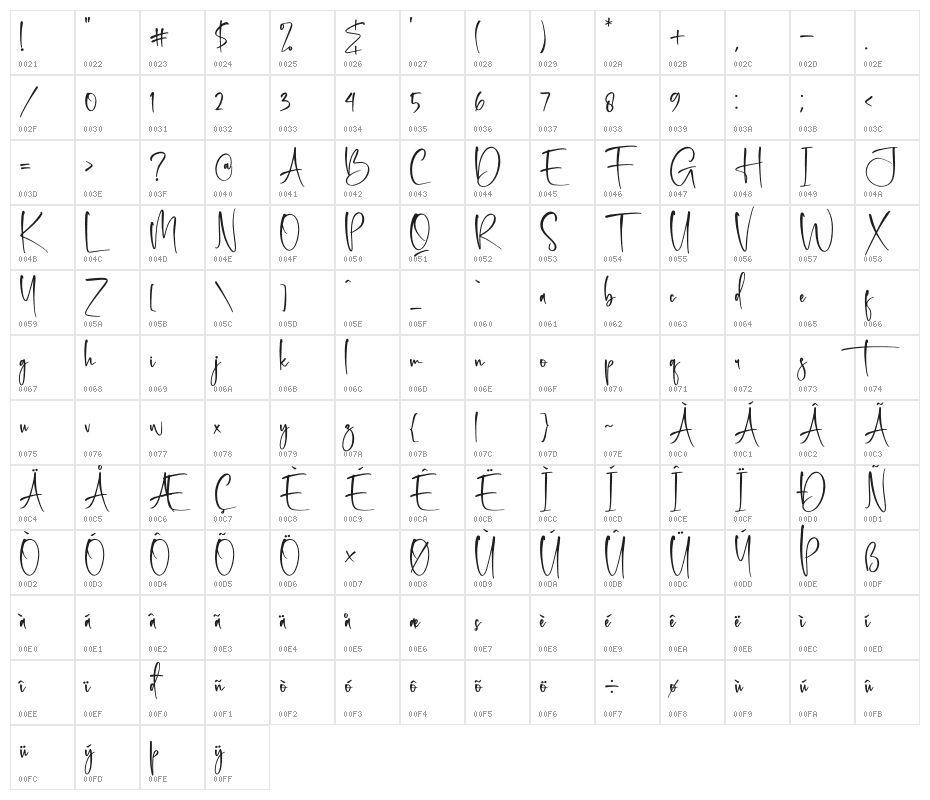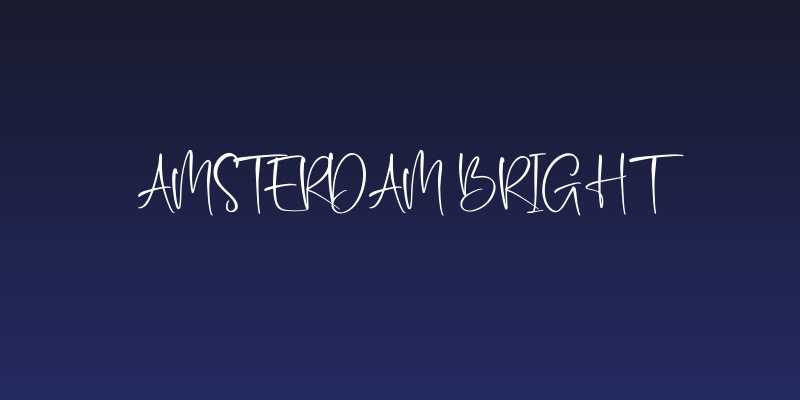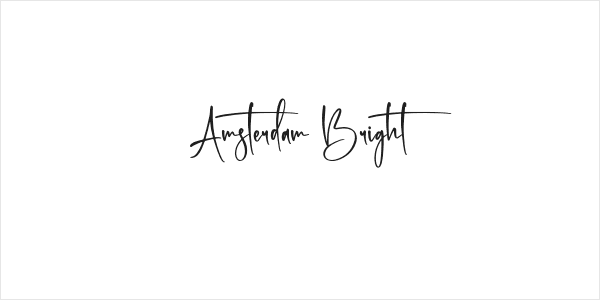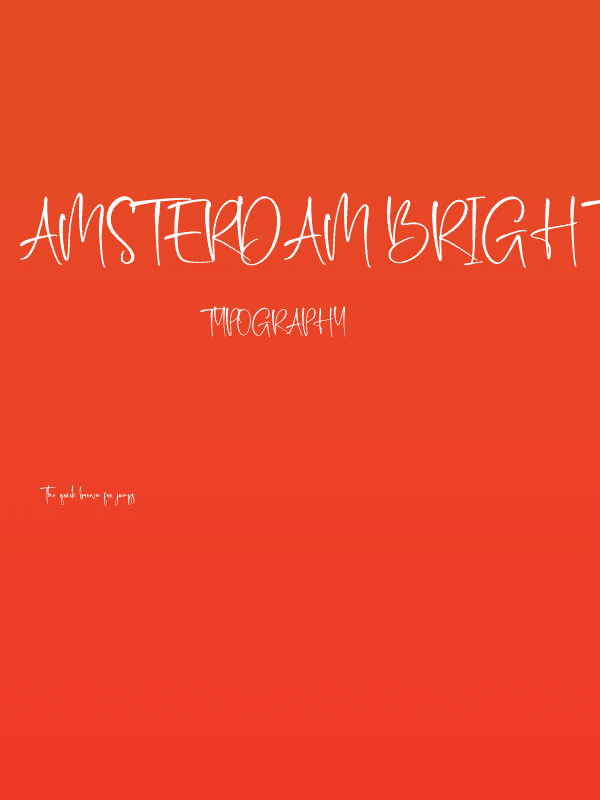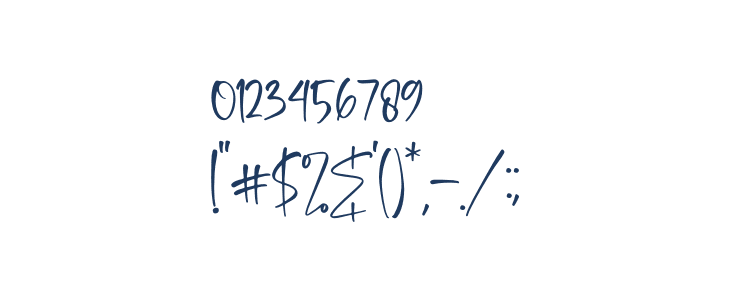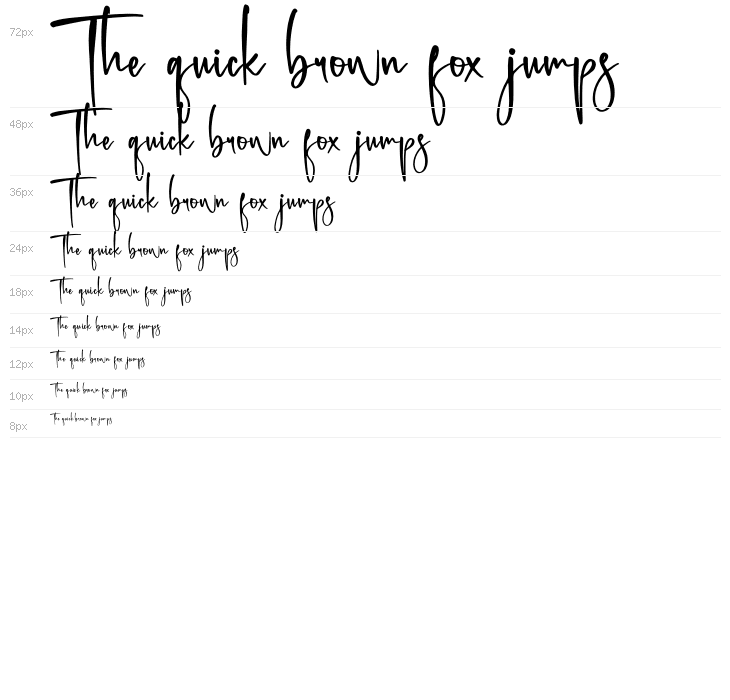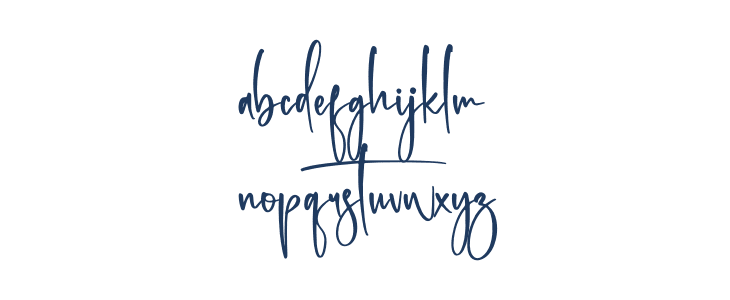
Amsterdam Bright Font
Amsterdam Bright Description
This font features a lively and dynamic handwritten style with a playful and artistic flair. The uppercase letters are tall and slender, with a slight slant that adds a sense of movement and energy. The lowercase letters are more compact, with loops and curves that give them a whimsical touch. The numbers and special characters maintain the same playful aesthetic, making them perfect for creative projects. The overall appearance is casual yet stylish, making it suitable for a variety of design applications.
| Proposed Projects | Ideal for greeting cards, invitations, branding, and social media graphics. |